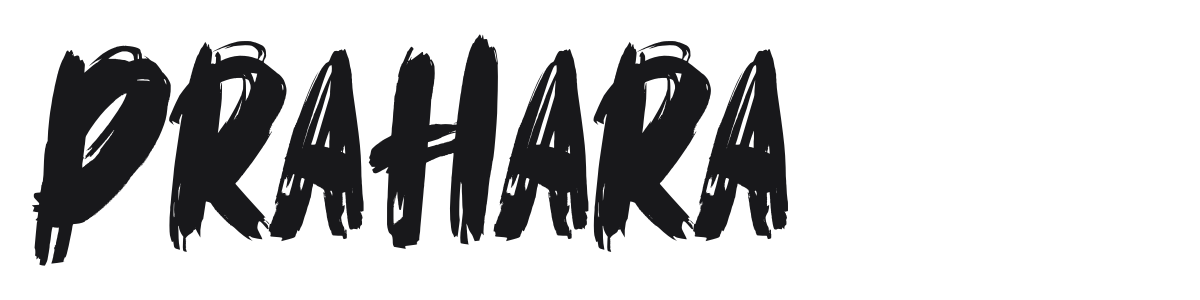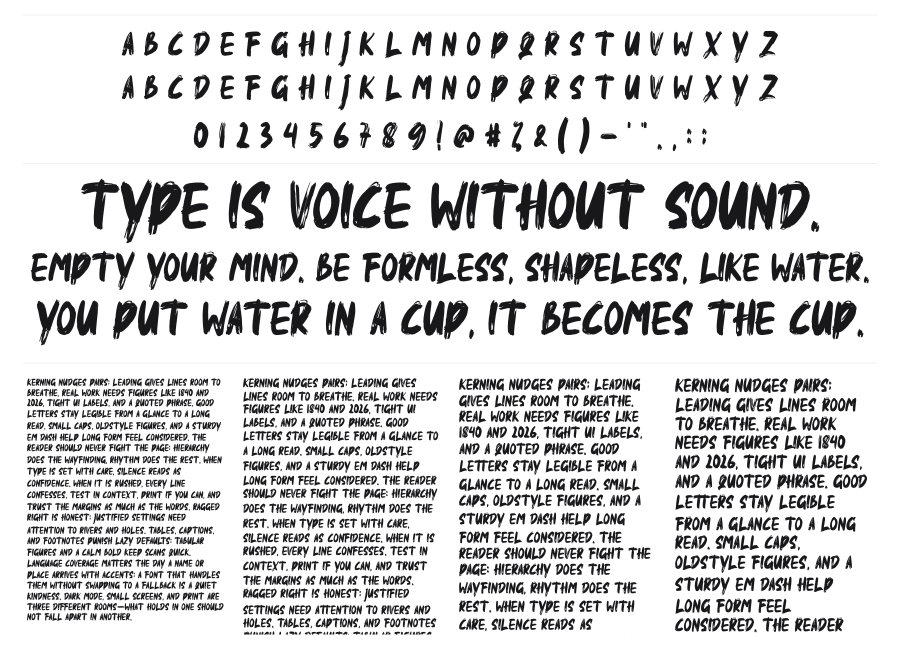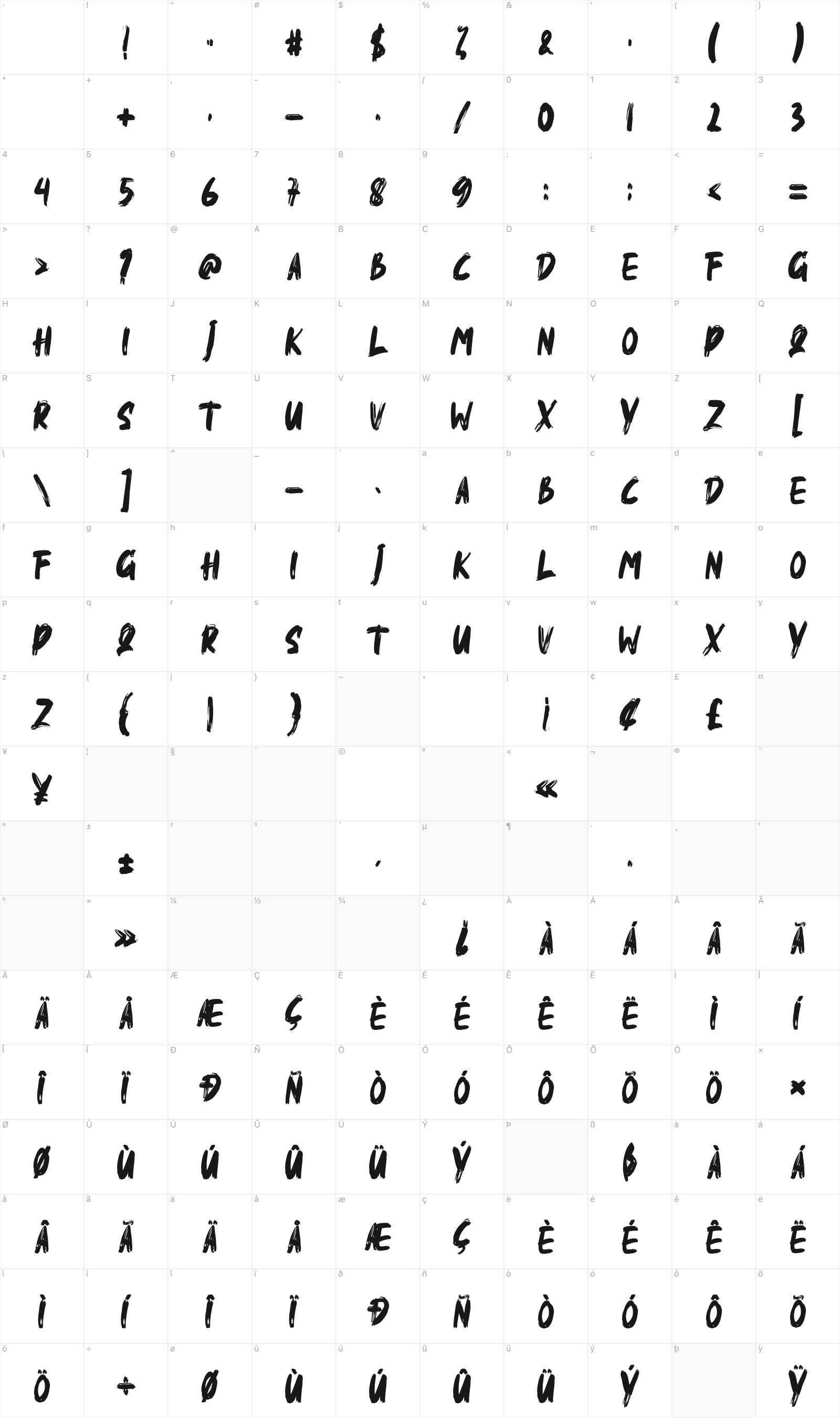
Prahara
Prahara is a rough, heavy brush script from Skiiller Studio with a raw, street-art energy. Thick strokes break into frayed, splintered edges that make every character look freshly painted on a wall or printed on a screen-press tee. It carries a loud, confrontational presence that suits music, sports, and underground culture branding.